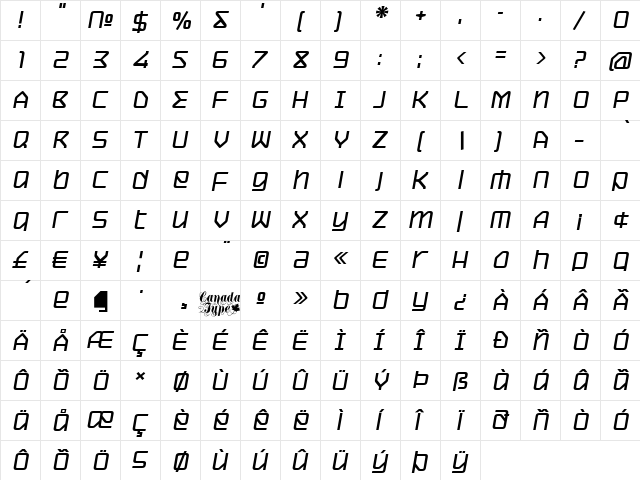
Hydrogen Bold Italic Font Preview
| Foundry | Canada Type |
| Designer | Patrick Griffin |
Design Context for Hydrogen Typeface
Hydrogen takes a measured approach to typography — its balanced proportions and neutral character make it a reliable workhorse for both digital and print work. The slanted form adds forward momentum and visual energy. The heavy weight commands attention and anchors typographic hierarchies.